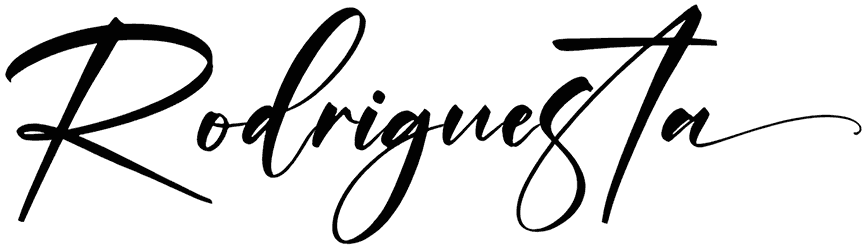
Rodriguesta Font
It is never too late to adopt a cursive script font such as Rodriguesta that is totally capable of turning any kind of creative idea, including invitations, diplomas, blog posts, magazines, or business cards, into a true piece of art.